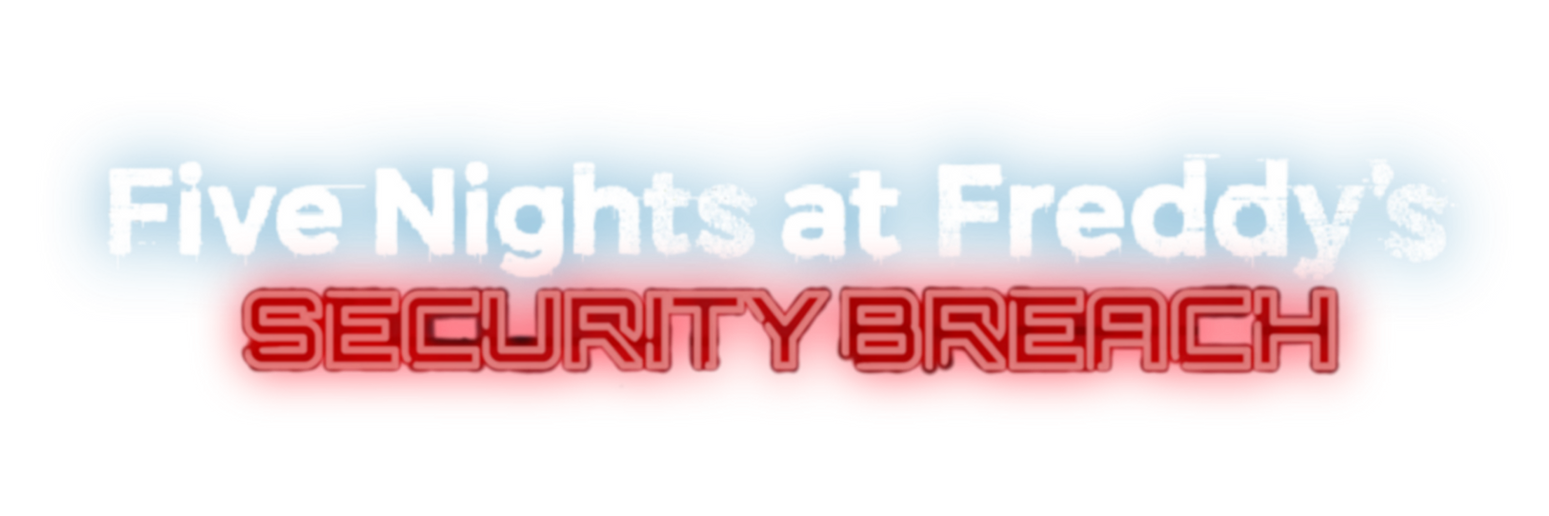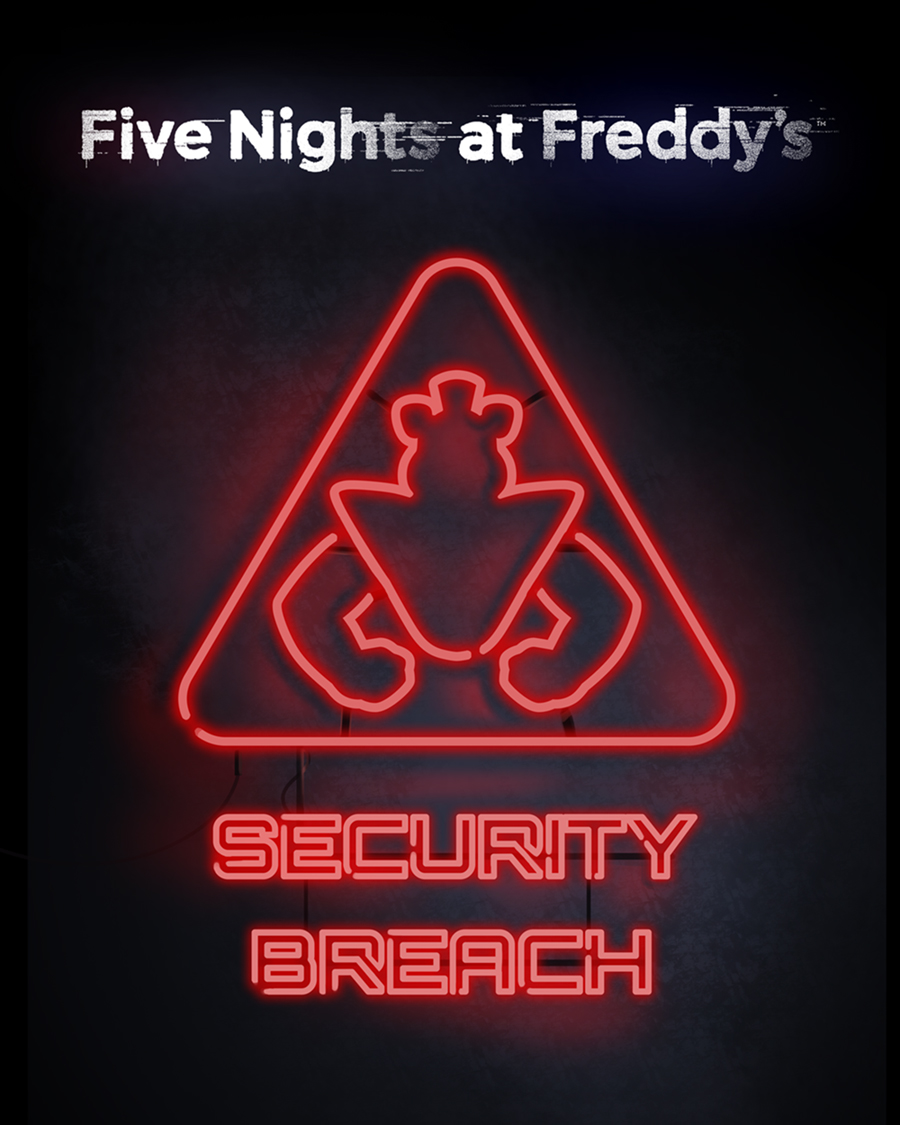
Five Nights At Freddy's Security Breach Font
Five Nights At Freddy's Security Breach Font - Jan 22, 2022 at 06:50. 1 to 15 of 17 results. Web personal use free. Collection of fonts for fnaf. Web i realy like the font used for security breach staff credits, with the neon design, and i wanted to use that in a personal project. Security breach font is a customized version of orbitron bold with a neon effect. Web the five nights at freddy’s: I just want to know what font is from the word security. Browse by alphabetical listing, by style, by author or. Archive of freely downloadable fonts.
Jan 22, 2022 at 06:50. Collection of fonts for fnaf. 1 to 15 of 17 results. Browse by alphabetical listing, by style, by author or. Security breach font is a customized version of orbitron bold with a neon effect. Web i realy like the font used for security breach staff credits, with the neon design, and i wanted to use that in a personal project. I just want to know what font is from the word security. Web the five nights at freddy’s: Archive of freely downloadable fonts. Web personal use free.
I just want to know what font is from the word security. 1 to 15 of 17 results. Web i realy like the font used for security breach staff credits, with the neon design, and i wanted to use that in a personal project. Browse by alphabetical listing, by style, by author or. Security breach font is a customized version of orbitron bold with a neon effect. Web the five nights at freddy’s: Web personal use free. Collection of fonts for fnaf. Jan 22, 2022 at 06:50. Archive of freely downloadable fonts.